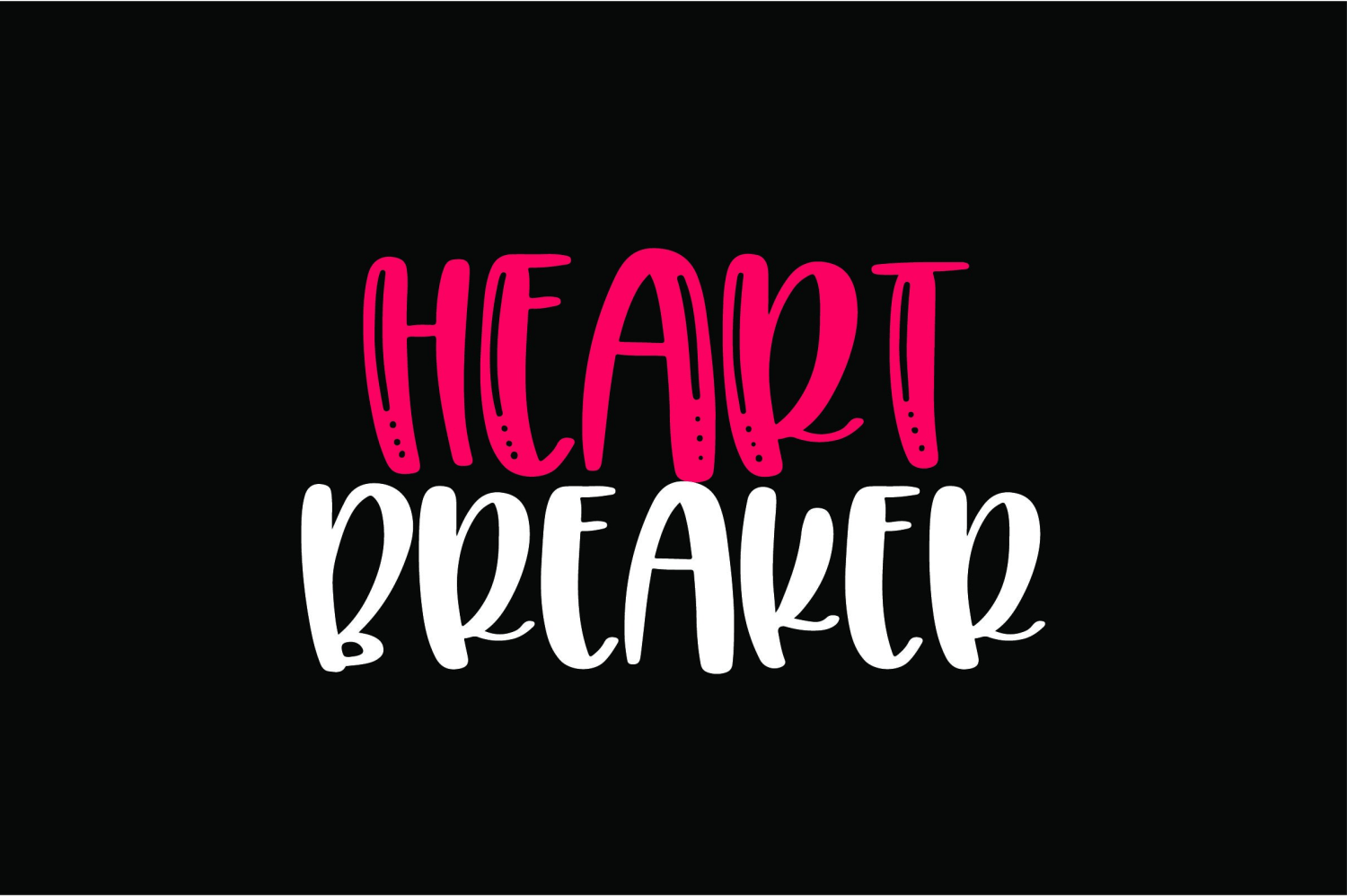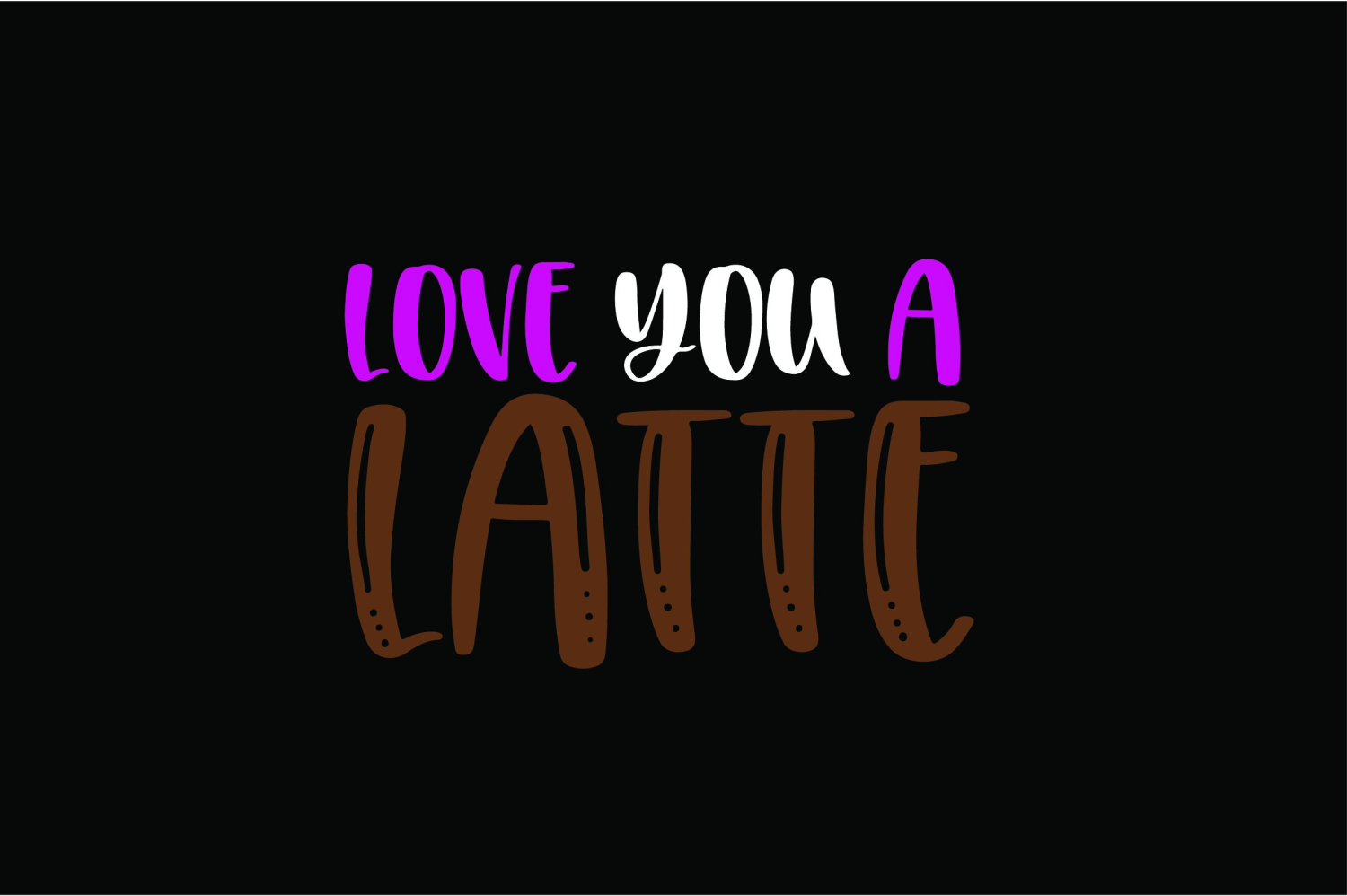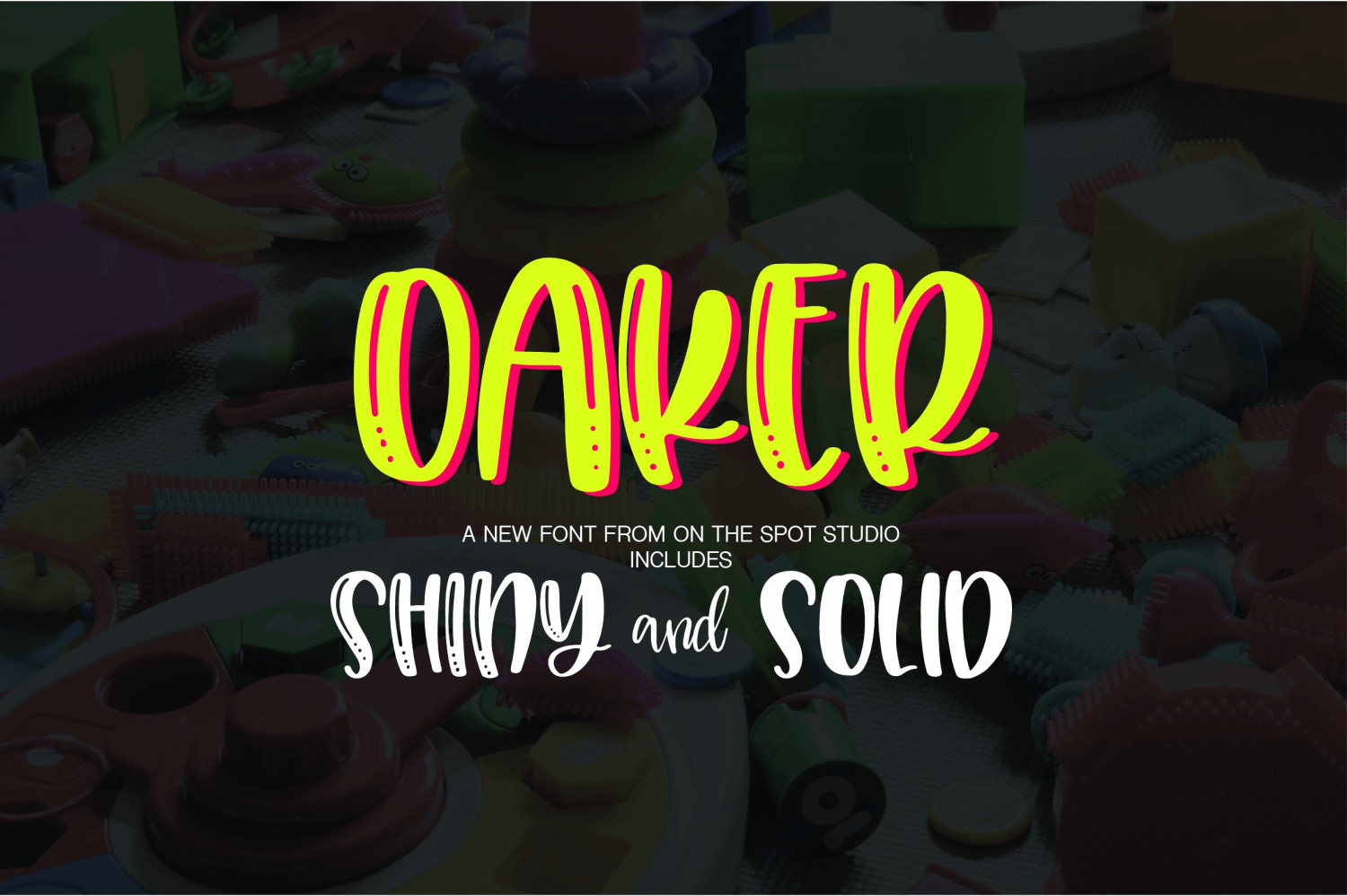
HomeFont BrosSans SerifOaker Sans SerifWacky Oaker FacebookTwitterPinterestWhatsApp 1 of 3 About Oaker Introducing Oaker! A fun font duo including both shiny and solid letters! PERFECT for crafting, using cutting machines such as silhouette or cricut, sublimation and more!  DOWNLOAD NOW 60 0 People also explored Wednesday Night Font Modebold Font Helmyani Font Bristol Signature Font Shutter Stone Font Biskuit Font Australia Font Rosy Lee Heart Dingbats Font Romantica Font Angel Hair Pasta Font Block Koredor Font Tags7698FOakerOaker Font Previous articleSweet RosieNext articleHeadstand LEAVE A REPLY Cancel reply Comment: Please enter your comment! Name:* Please enter your name here Email:* You have entered an incorrect email address! Please enter your email address here Website: Save my name, email, and website in this browser for the next time I comment. Unlock Endless Creativity with the FREE September Clipart Huge Bundle (Valued at $700!) Personal Use Free Shkoder 1989 Personal Use Free Read more Messages Personal Use Free Read more Hatchill Personal Use Free Read more Spectrashell Personal Use Free Read more BLOG Using Fonts in Digital Marketing: Tips to Strengthen Your Brand Identity In the realm of digital marketing, every visual element plays a crucial role in shaping a brand's identity, and fonts are no exception. The... Exploring Font Trends Free Fonts Risk: Why Free Fonts Can Be Dangerous for Designers The 10 Best Handwriting Fonts to Add Personality to Your Designs